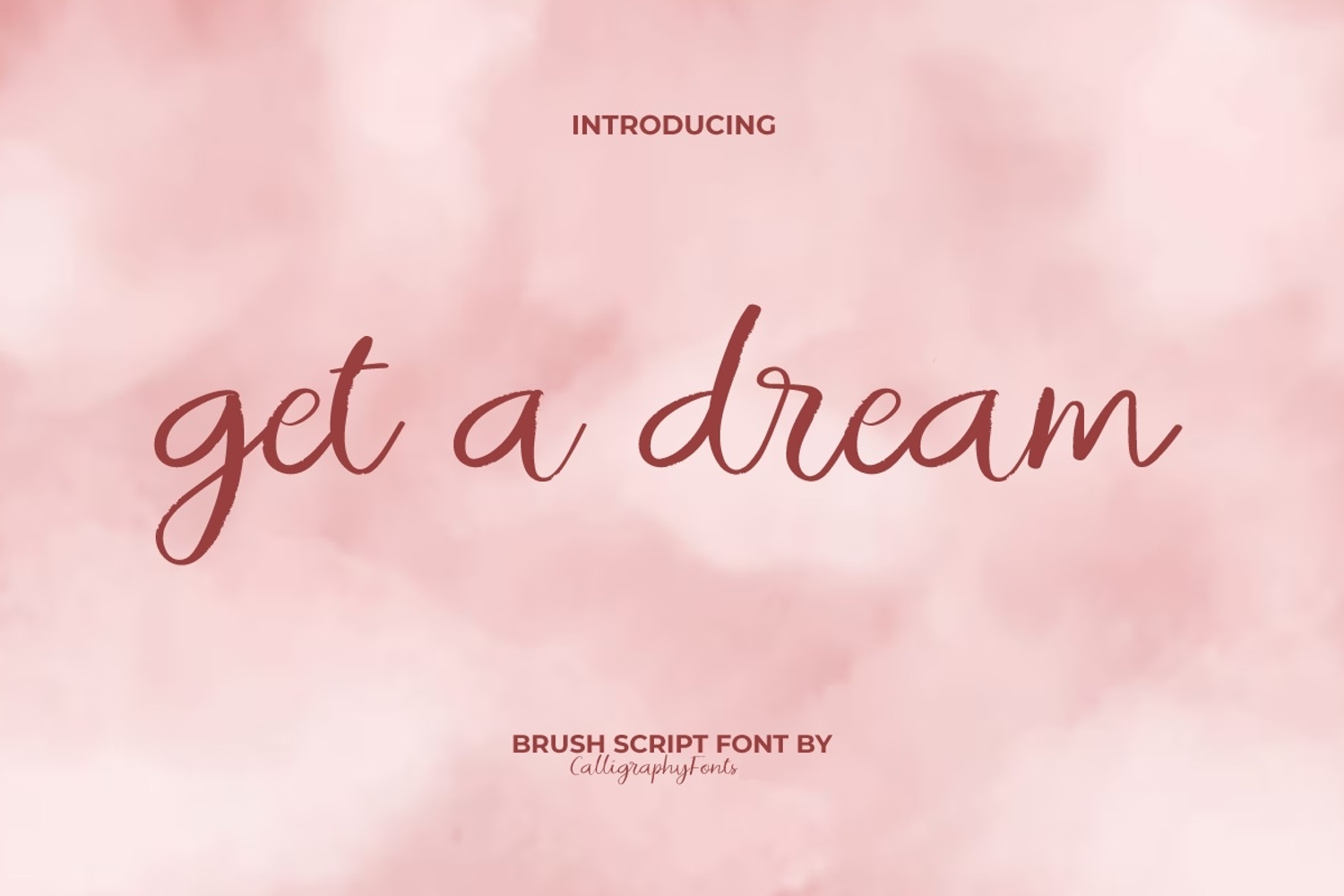
Get A Dream Font
Get A Dream Font is a chic handwritten script font that uses a variety of simple ligatures. It is handcrafted to achieve a very natural handwriting style. This versatile typeface adds a distinctive touch to your designs, such as apps, branding materials, brochure, headings, invitations, labels, logos, posters, quotes, stationery, tags, websites, or anything.
Turn your creative visions into reality with Get A Dream Brush Font – a bold and expressive brush typeface designed to bring energy, personality, and artistic flair to your projects. Inspired by the natural strokes of hand-painted lettering, this font captures the authentic texture of a brush pen, giving your designs a lively and handcrafted look.
Get A Dream Brush Font is a casual brush handwriting that is slightly jagged so it has a nice texture and flow. It is the perfect font to get a realistic elegant brush type. Suitable for projects such as advertisement, bridal boutique, cafes, cosmetic, event organizer, graphic design, handicraft, home furniture, photography, skincare, wedding, and more.